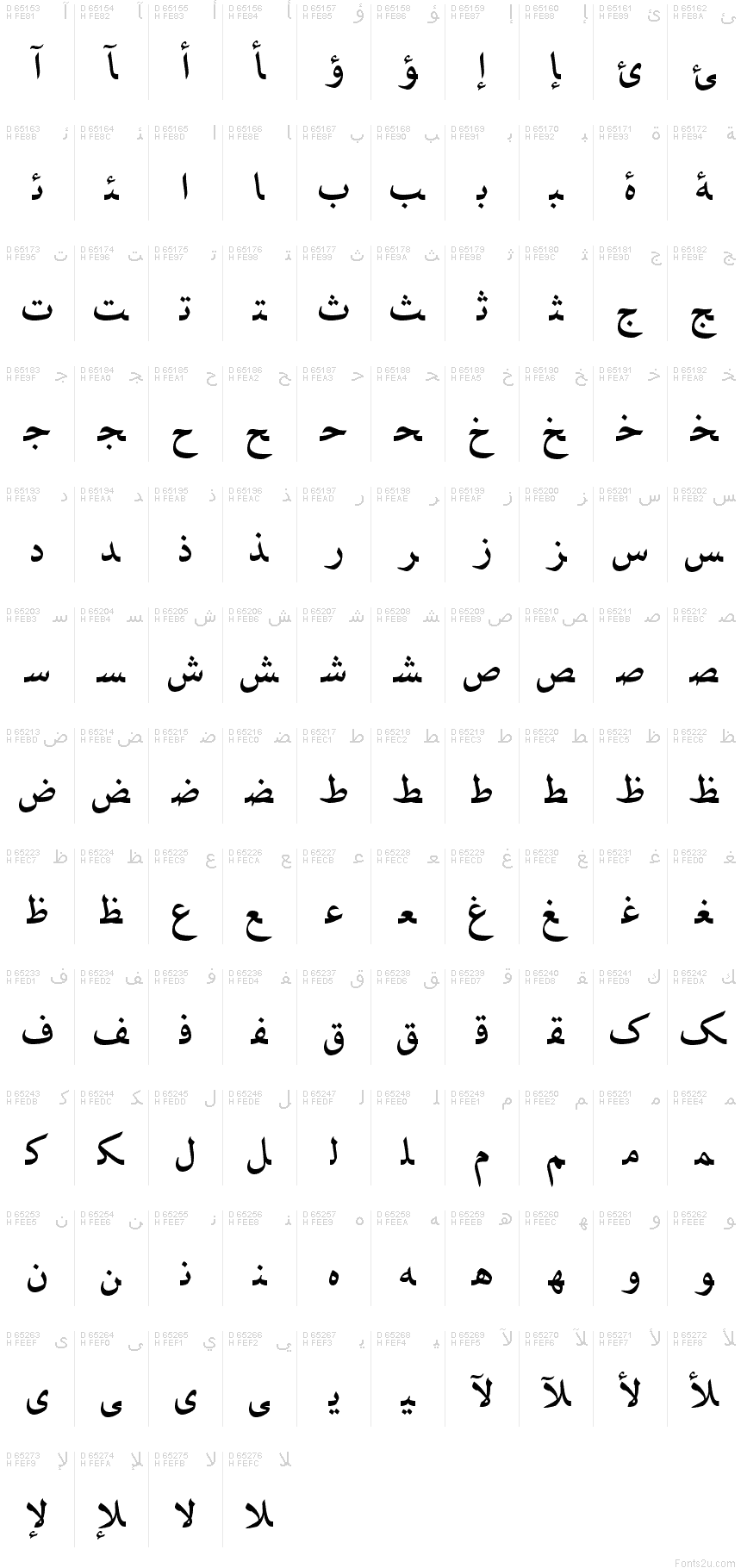
B Karim Bold by Borna Rayaneh is a free bold Arabic display font with a compact, calligraphic rhythm. The letters feel dense and assured, with rounded joins, short rising strokes, and a steady horizontal flow that gives the word shapes a solid, headline-like presence.
It suits branding rooted in Arabic culture, magazine cover lines, poster titles, packaging, storefront signage, and title cards where a few words need weight without losing a handwritten pulse. As a free font, it makes sense for short editorial headings and logo studies, especially when you want Arabic lettering that feels formal but still warm.